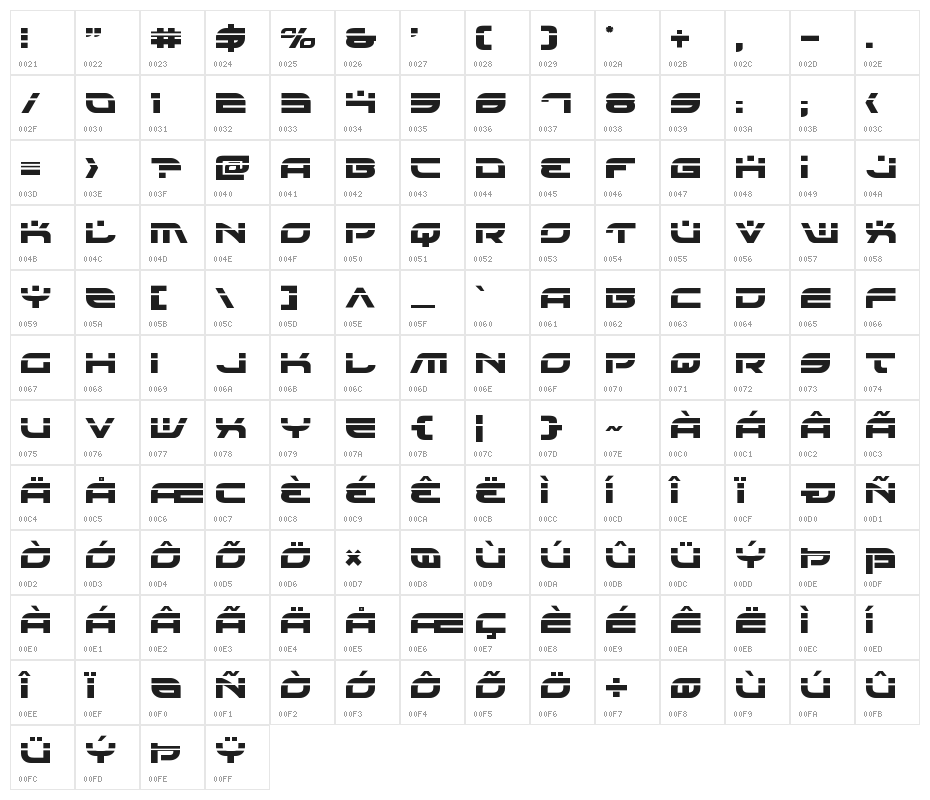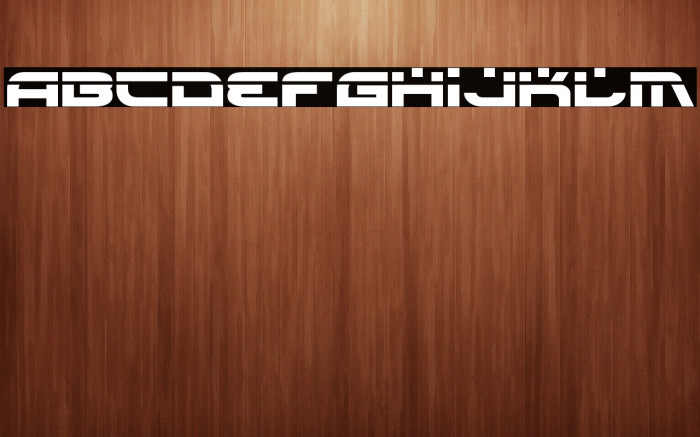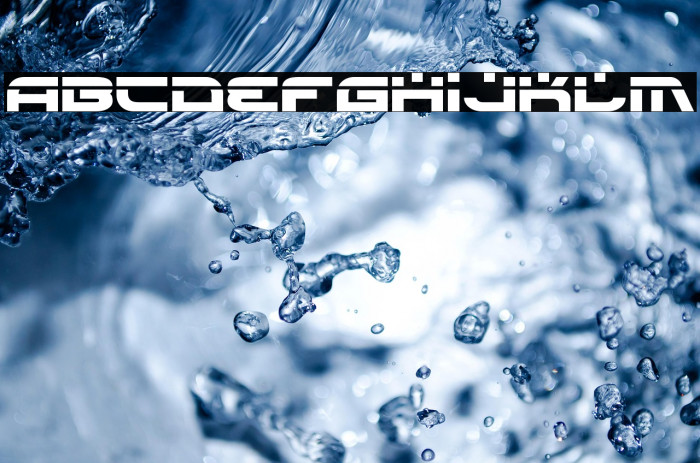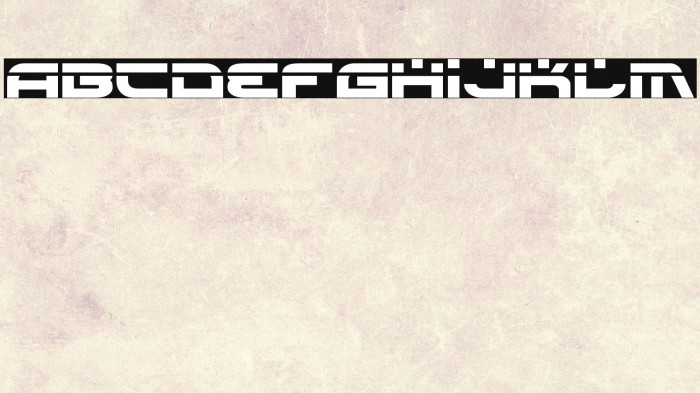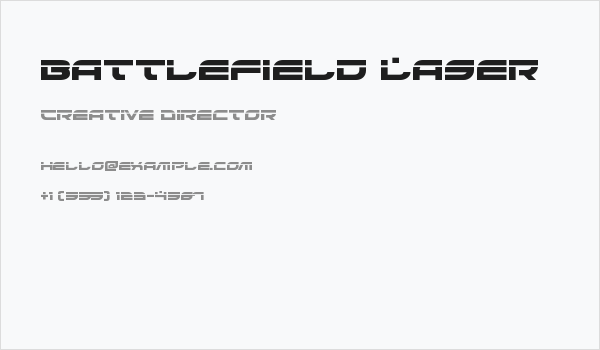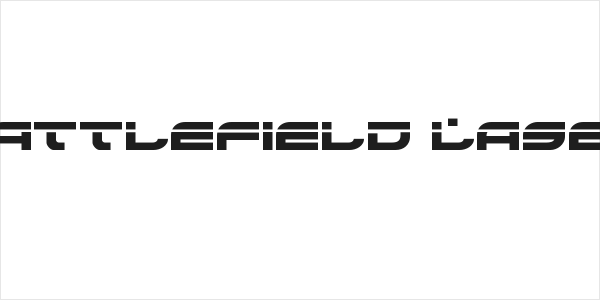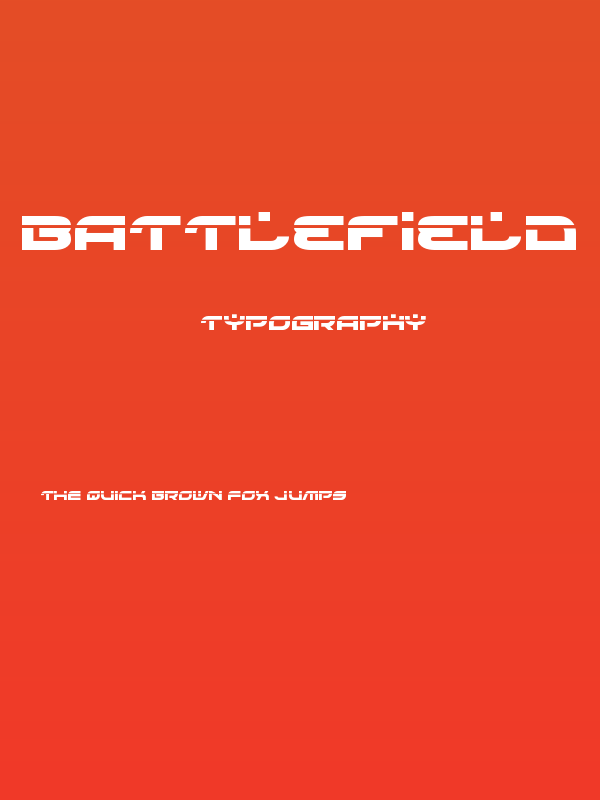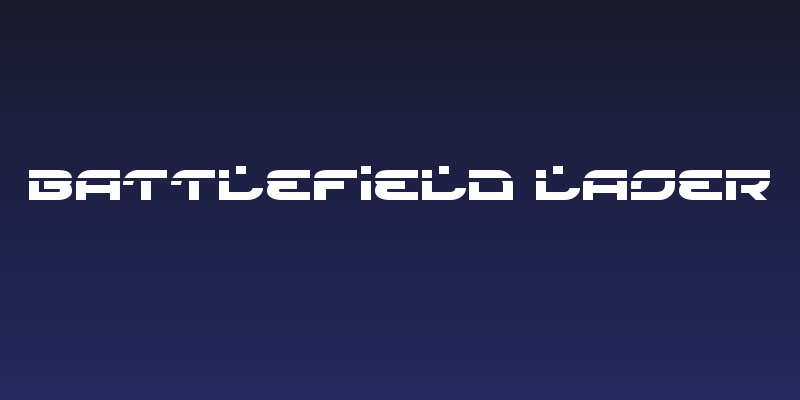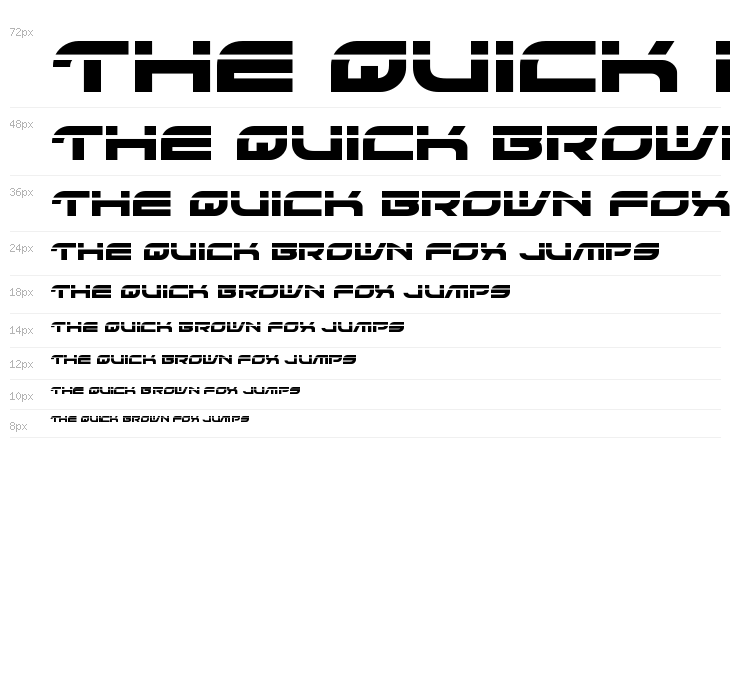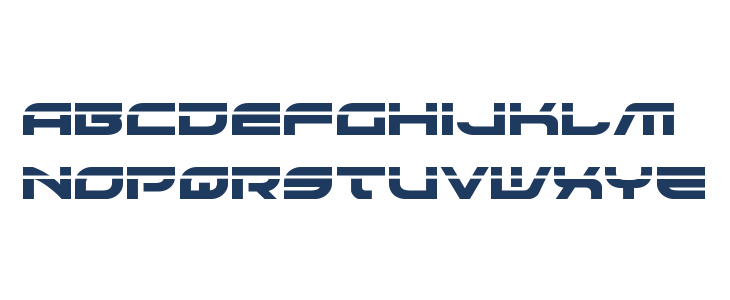
Battlefield Laser Font
Battlefield Laser Description
This font features a futuristic and angular design, characterized by sharp edges and geometric shapes. The uppercase and lowercase letters maintain a consistent style, with a bold and impactful appearance. The numbers and special characters are designed to match the overall aesthetic, making them suitable for a cohesive design. The font's unique style is reminiscent of digital or sci-fi themes, making it ideal for projects that require a modern and edgy look. The consistent stroke width and angular cuts give it a distinctive and memorable appearance.
Overall StyleFuturistic
Proposed ProjectsIdeal for sci-fi themed posters, video game titles, tech branding, and futuristic designs.